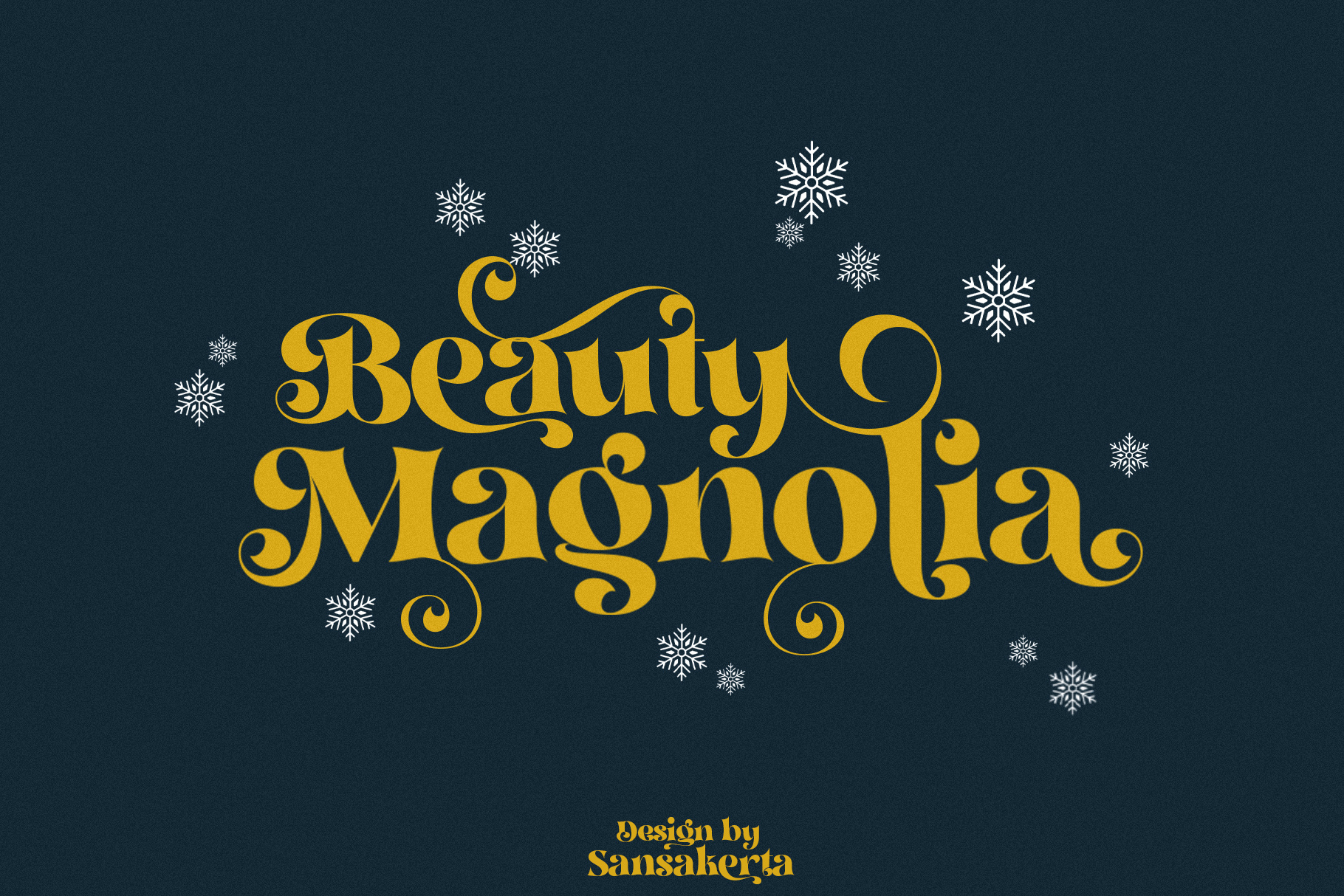
Beuaty Magnolia - Display Font
Link Download https://fontbundles.net/sansakerta/1049930-beauty-magnolia-display-font Beauty Magnolia is Unique, playful and versatile serif Font with 30+ ligatures and 97+ alternates that you can combine to get curves and beautiful shapes just in seconds. Play with the ornaments to create a more stunning display.
This font is suitable for use in many design forms, for example magazines, postcards, logos, vintage look, old classic ,60s, 70s, 80s era, wedding projects and many more. We recommend using Adobe Illustrator or Photoshop.